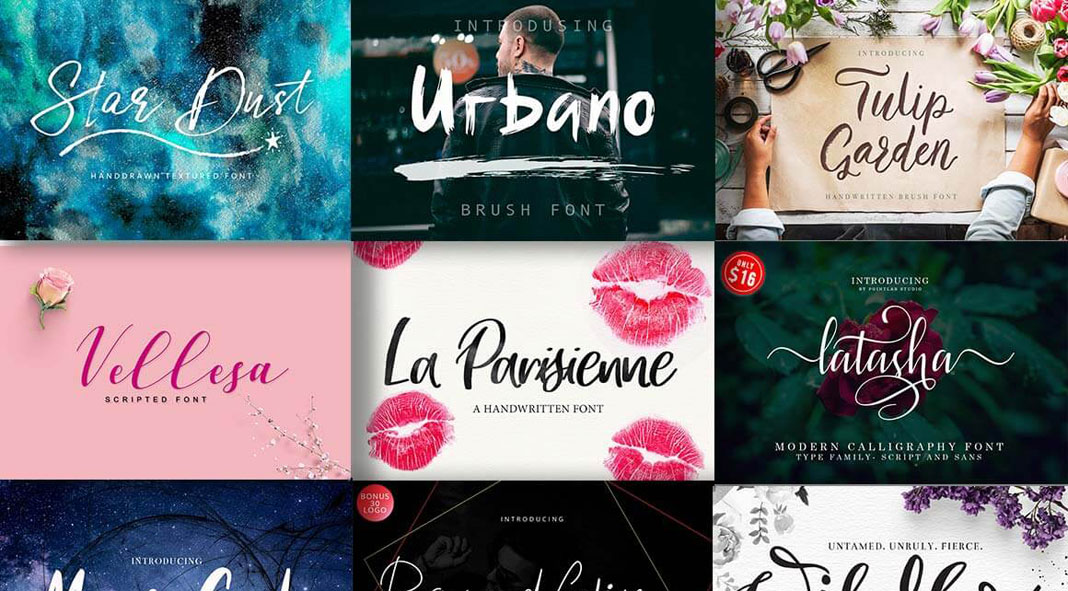
Grab Pixelo’s fantastic fusion bundle and get 21 fonts as well as more than 4000 graphics!
To celebrate the beginning of the new year, the friendly people of Pixelo have put together another amazing bundle. This huge selection of design resources includes 21 high-quality fonts and more than 4000 graphics. The fonts varying from display and hand-drawn to script typefaces. Some of the fonts come with different family members or even alternate versions, which results in a total of 49 individual fonts. The huge collection of graphics includes countless goodies for the daily use. Whether brushes, textures, illustrations or mockups, this collection will help you to create awesome designs in no time! If you would buy all the items individually, you would have to pay $3000. Only for a very limited time, you can grab them all for just $29 – that’s a discount of 96%!